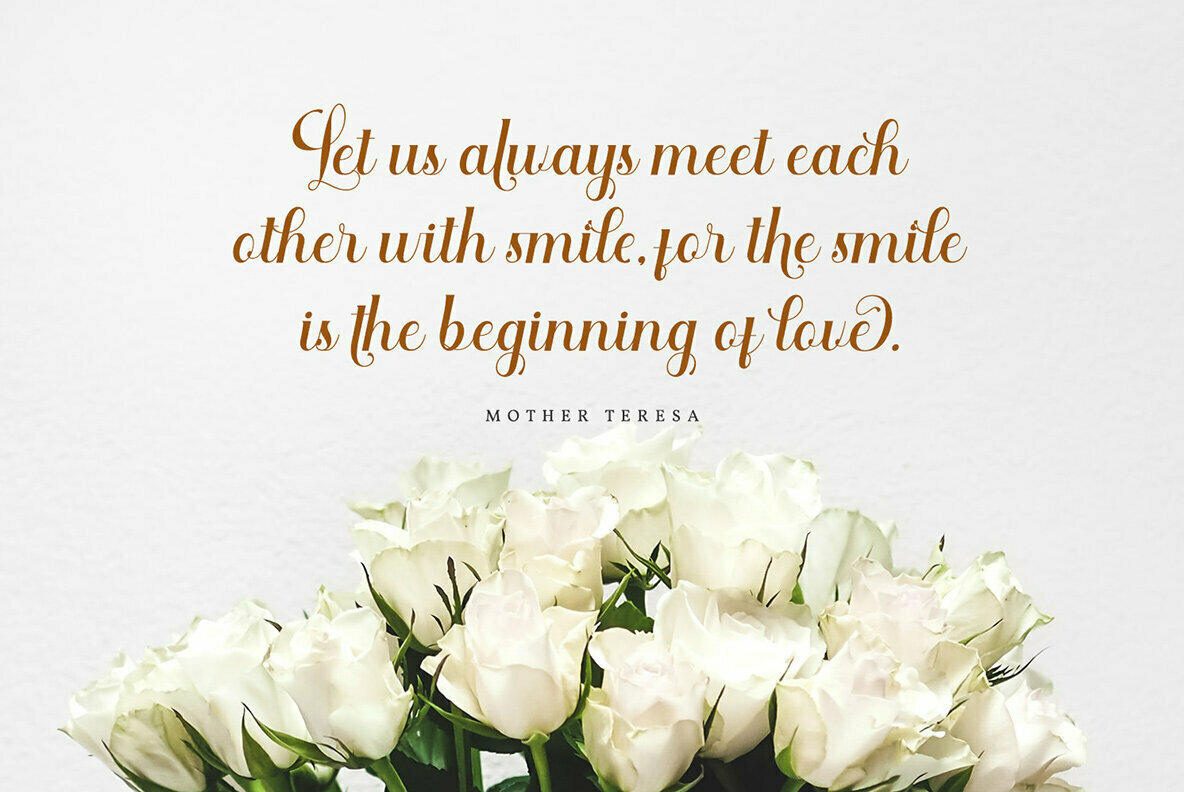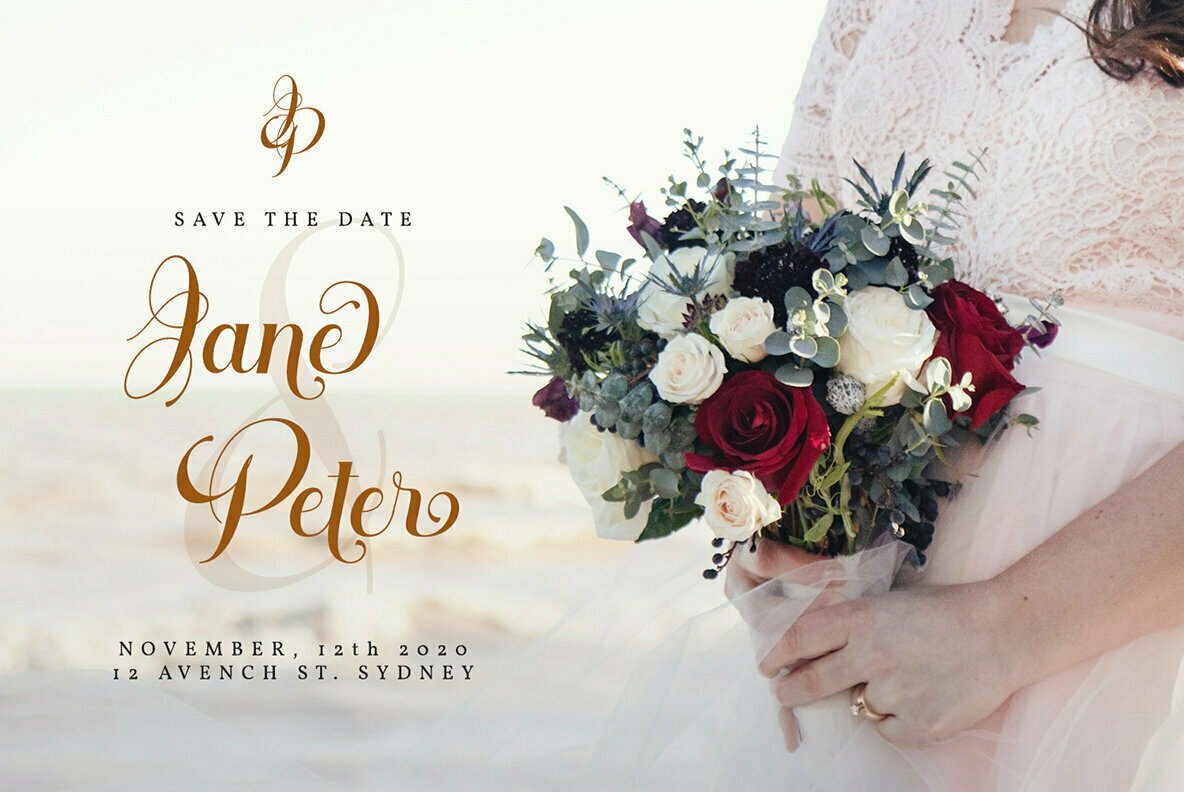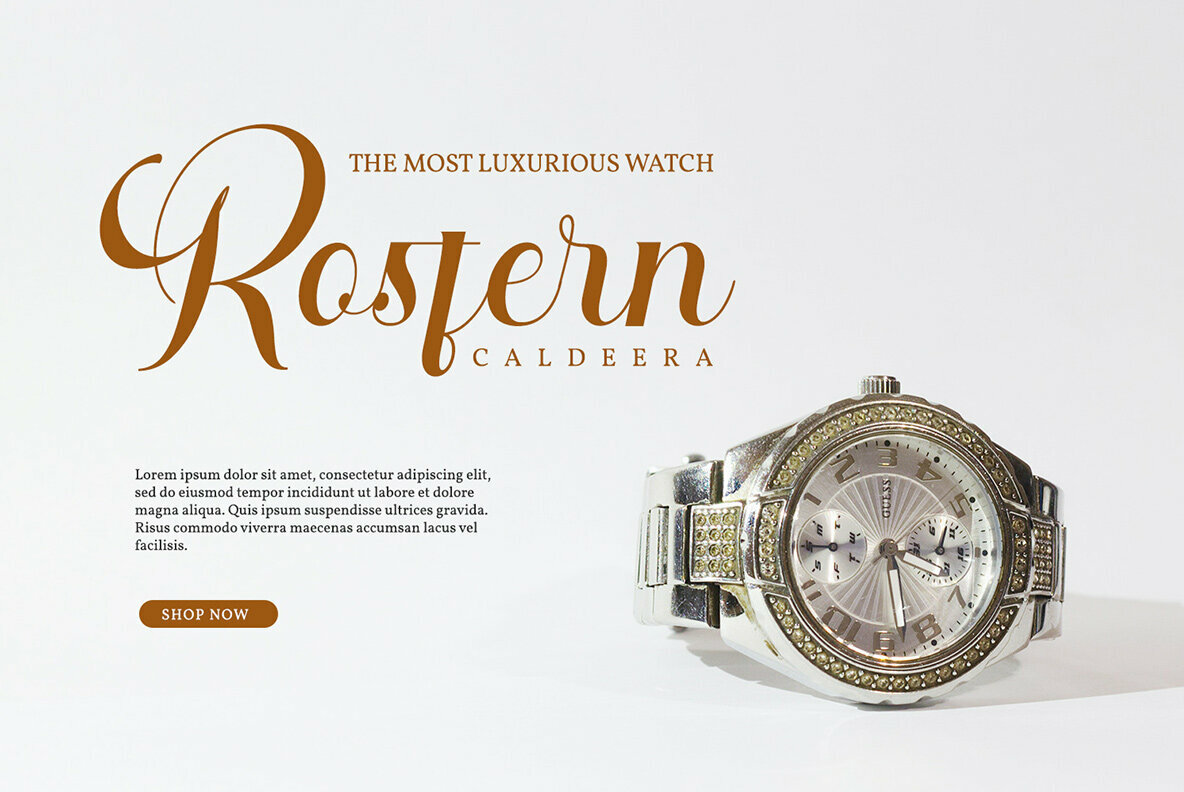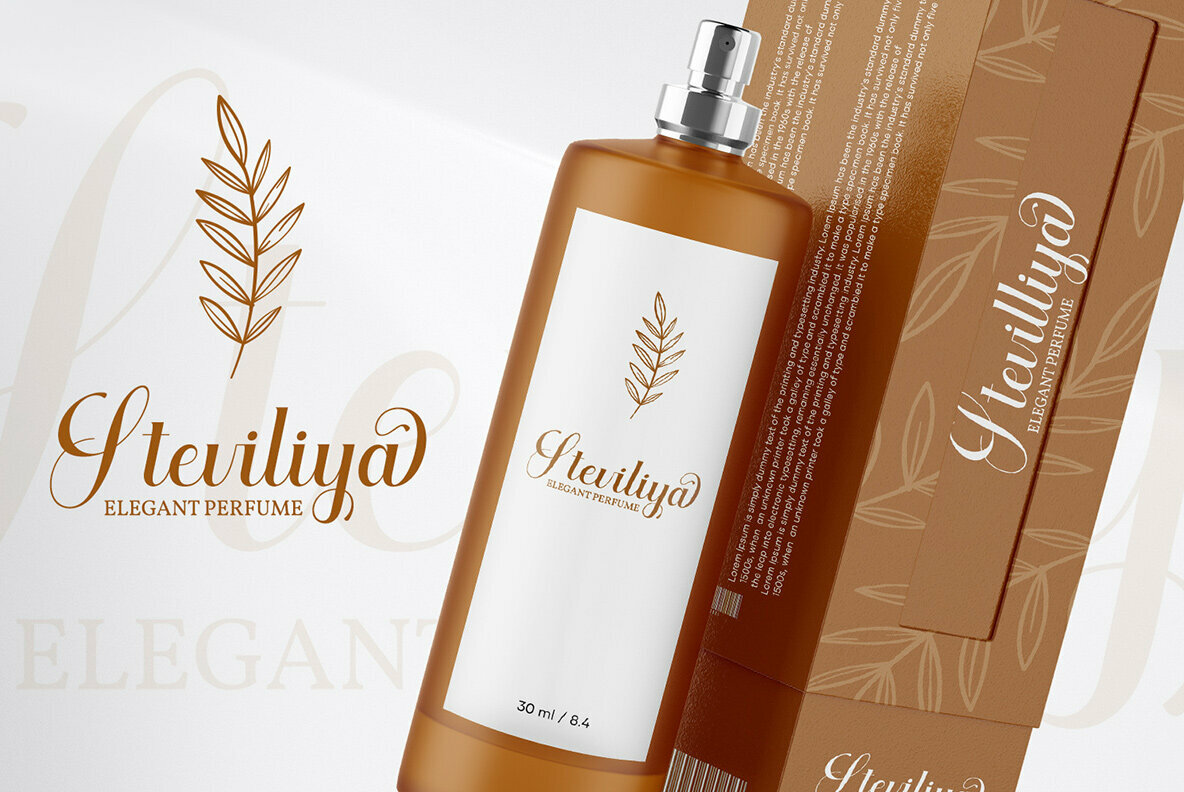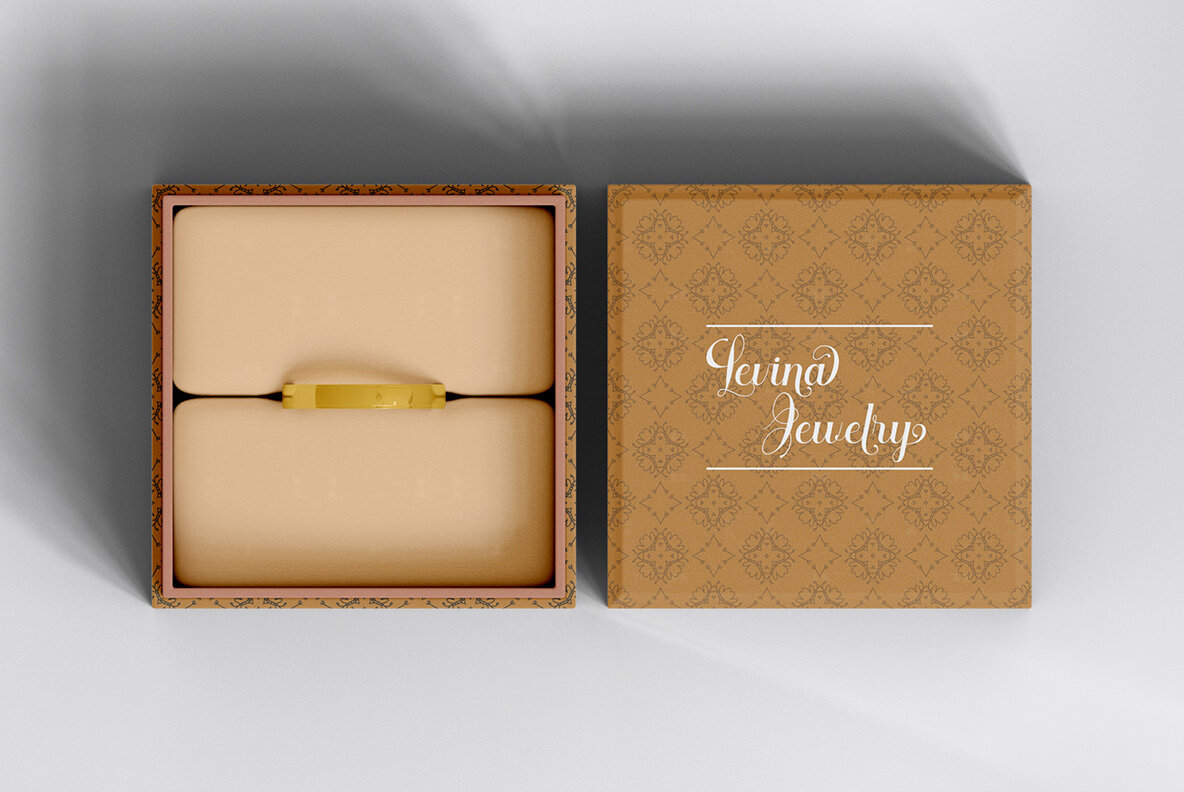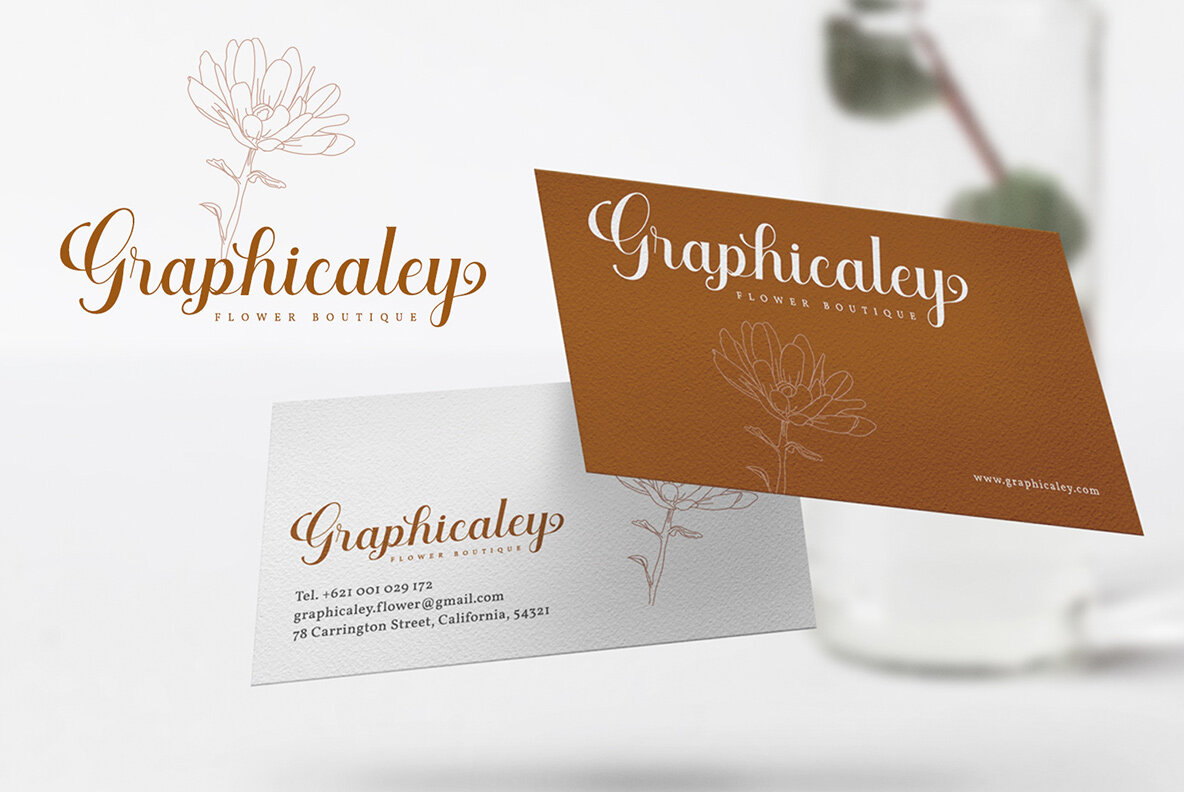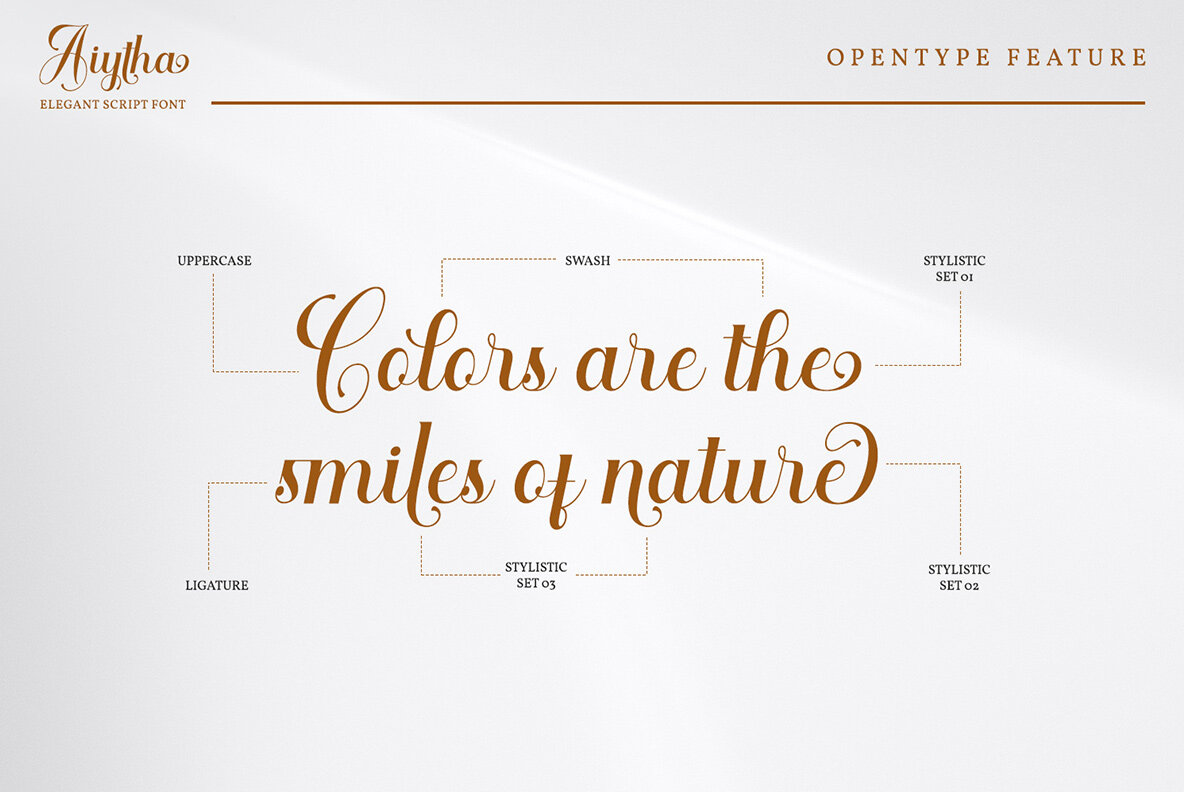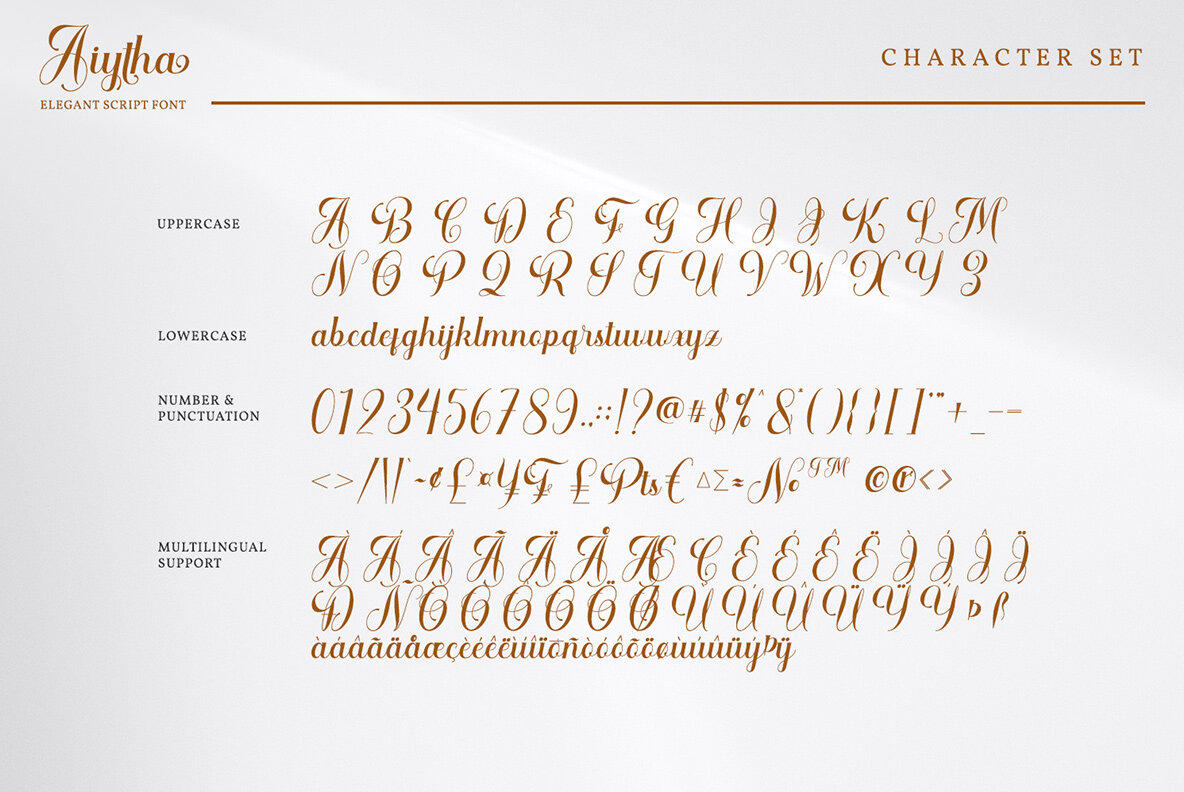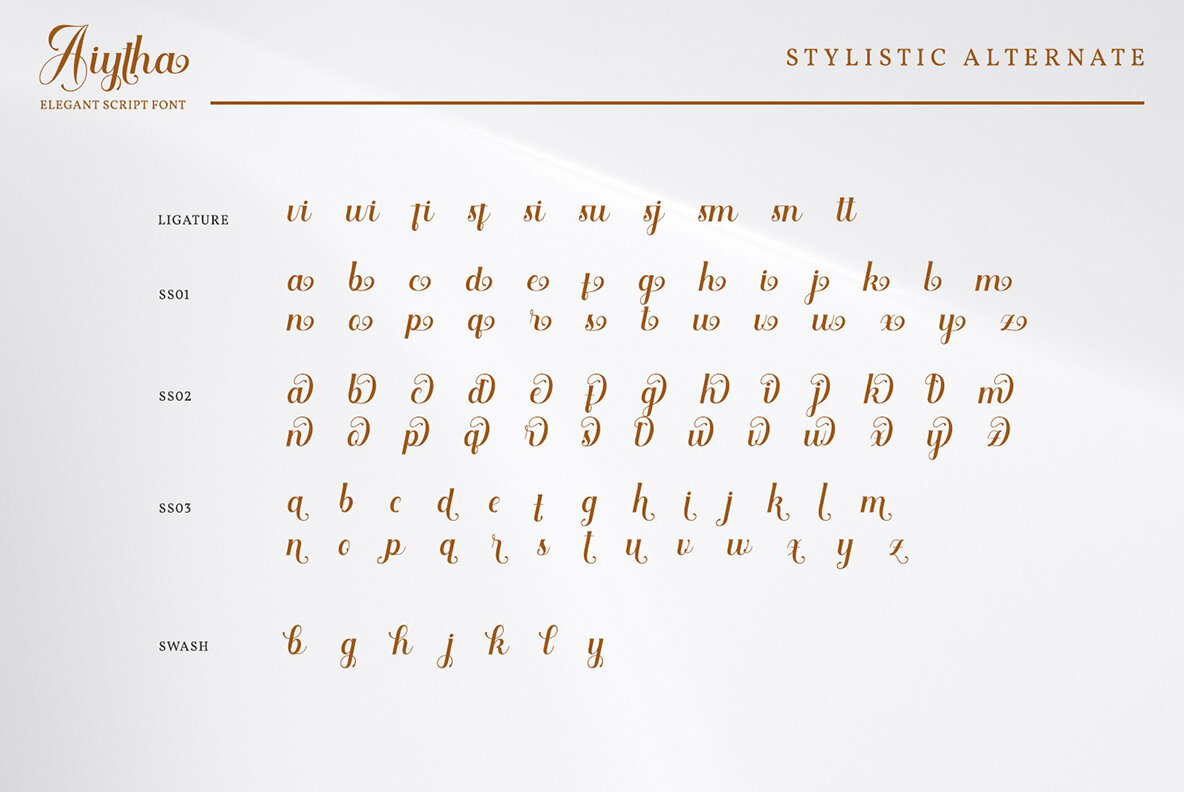
Aiytha Font
Aiytha
Aiytha is a modern calligraphy font. It brings a beautiful and attractive typeface. Made for any professional project branding. It is the best for logos, branding, wedding and quotes.
- Stylistic Set
- Beautiful Ligatures
- Numerals and Punctuation